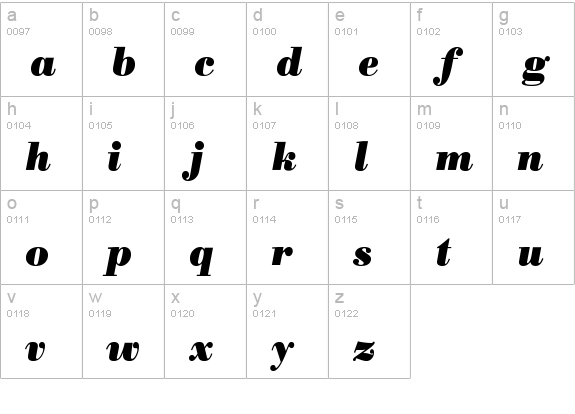
Bodoni Berthold BQ Bold Italic Font Details
Bodoni Berthold BQ Bold Italic is a strong, high-contrast, italic variant in the Bodoni typeface family \xE2\x80\x94 well suited to headlines, attention-grabbing titles, and strong calls-to-action.
The Bodoni Berthold BQ Bold Italic font exudes elegance and sophistication with its strong, slanted design. Its bold strokes and delicate curves make it a perfect choice for projects that require a touch of modern flair and timeless charm. This font is ideal for creating eye-catching headlines, titles, and branding materials that demand attention. What sets Bodoni Berthold BQ Bold Italic apart is its seamless blend of classic style and contemporary edge, making it a versatile choice for a wide range of design projects. Whether you're working on a high-end fashion magazine, a luxury brand advertisement, or a sleek website design, this font will add a touch of refinement and class. Best of all, Bodoni Berthold BQ Bold Italic is available for free download at FontsMarket.com, making it easily accessible to designers and creators looking to elevate their work with a touch of sophistication. Don't miss out on the opportunity to add this stunning font to your collection and take your designs to the next level.